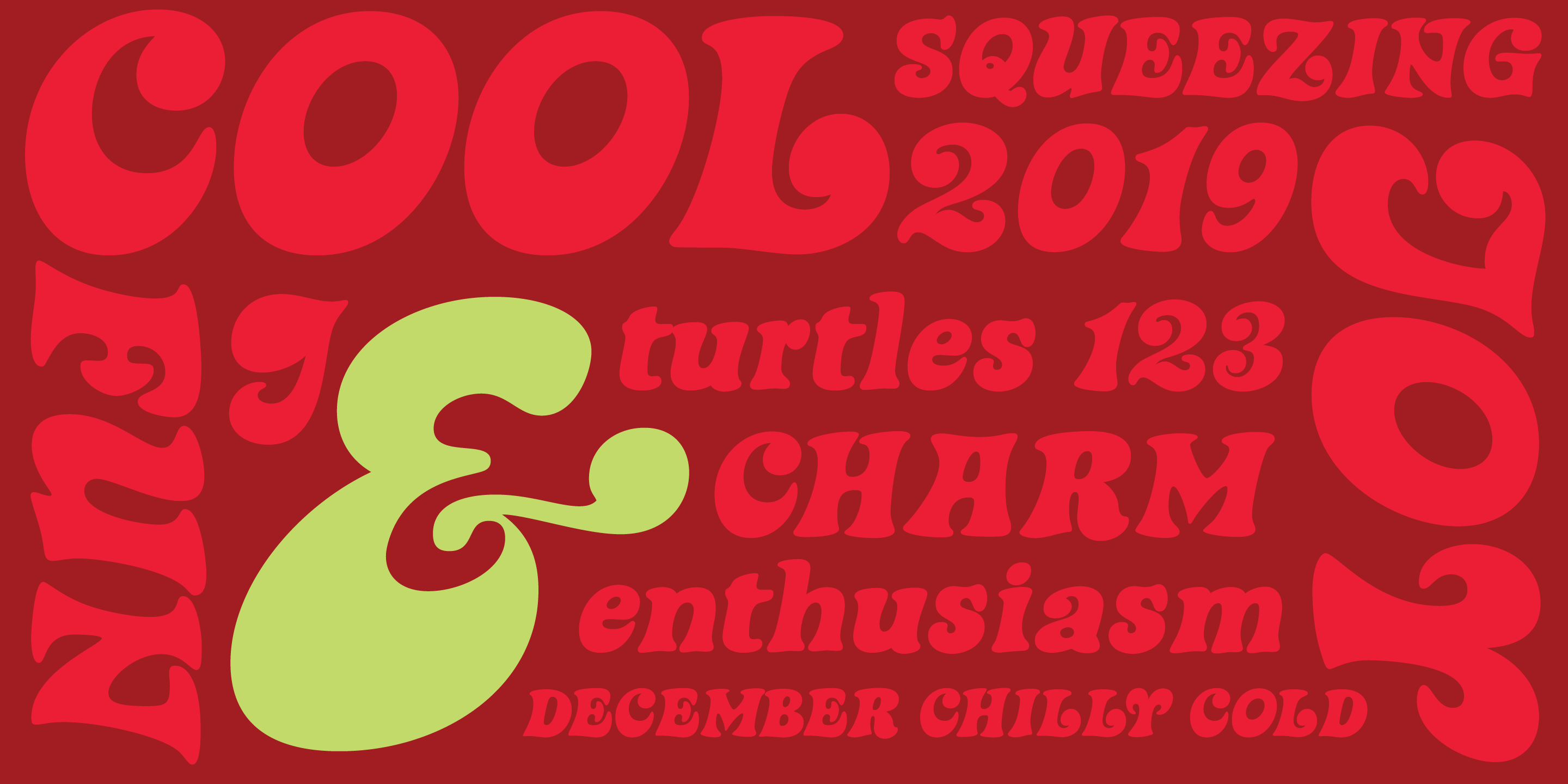
Steiner Special Font is perfect for educational institution branding, philosophical publications, anthroposophical materials, alternative education programs, holistic learning centers, Waldorf school communications, spiritual education resources, progressive pedagogy materials, mindful learning environments, and thoughtfully enlightened marketing communications.
Steiner Special Font is exciting because it embodies the visionary wisdom and holistic educational philosophy of transformative learning with its thoughtfully balanced letterforms that reflect the careful consideration of human development and the profound understanding that true education nurtures the whole human being. Its intellectually compassionate character design reflects both the rigorous scholarship of educational pioneers and the gentle wisdom that recognizes learning as a deeply human and spiritual journey, making it perfect for brands dedicated to meaningful educational transformation.
Steiner Special Font family includes light, regular, medium, bold, and black weights, each with corresponding italic versions. The font family also features educational ornaments, wisdom-inspired ligatures, pedagogical symbols, and holistic decorative elements that enhance its enlightened aesthetic and educational versatility.
This wisely educational typeface represents the perfect fusion of scholarly wisdom and compassionate pedagogy. Steiner Special Font Free Download allows designers to explore its educational possibilities before making a commercial commitment. The font's ability to convey both intellectual depth and nurturing care makes it ideal for educational institutions, philosophical organizations, and learning-focused brands targeting audiences seeking meaningful, holistic educational experiences.
Whether you're developing alternative education identities, creating philosophical publication materials, or designing holistic learning communications, Steiner Special Font brings an unmistakable sense of educational wisdom and transformative learning to every project. Its thoughtful character and pedagogical heritage create powerful connections that resonate with educators and learners seeking authentic, meaningful educational experiences.
The font's versatility excels in educational and spiritual environments where wisdom and holistic development are valued. Its enlightened character makes it particularly effective for alternative schools, educational foundations, philosophical institutes, and progressive learning organizations seeking to establish meaningful relationships with educators and families who appreciate thoughtful, transformative educational approaches.
For designers working on projects requiring genuine educational wisdom and holistic appeal, Steiner Special Font provides an exceptional solution. Its thoughtful presence and comprehensive education-themed elements offer the tools needed for creating truly enlightening communications, while its compassionate intelligence ensures your designs capture the profound wisdom and nurturing care that defines the most transformative educational experiences and meaningful learning communities.